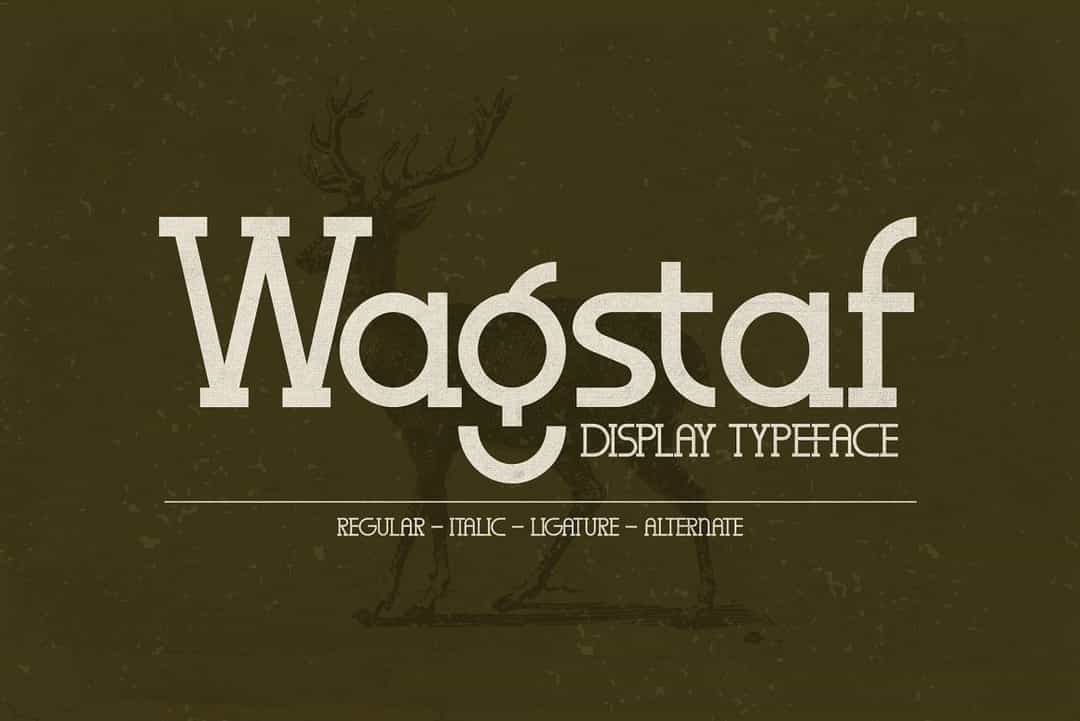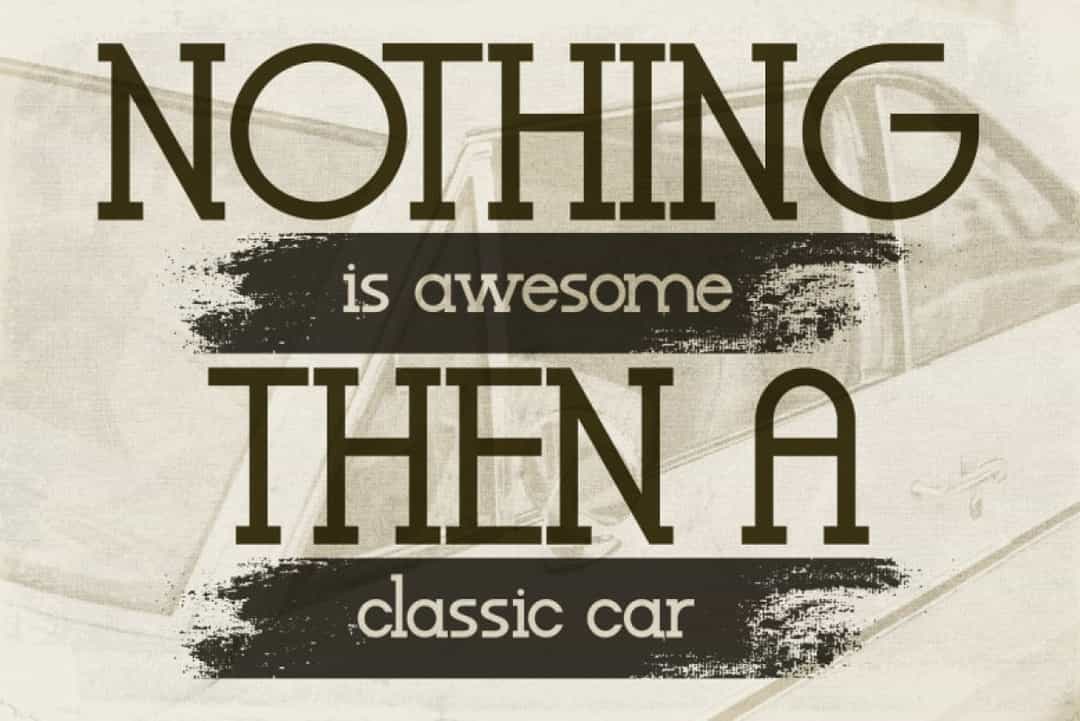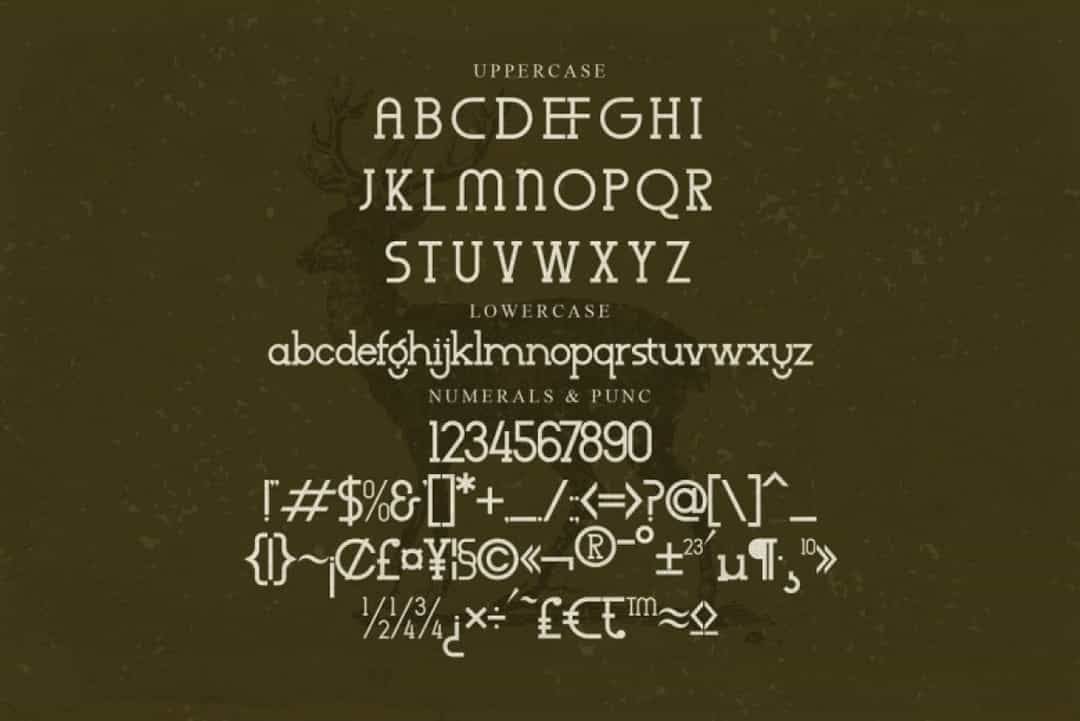
Wagstaf Typeface designed by Storytype is an eye-catching modern slab serif and classic typeface, boasting its distinctive style and contemporary appearance. Perfect for creating sophisticated logos, movie or book title designs, fashion label clothing designs, magazines lettering quotes and much more, Wagstaf can help make any space elegantly beautiful!